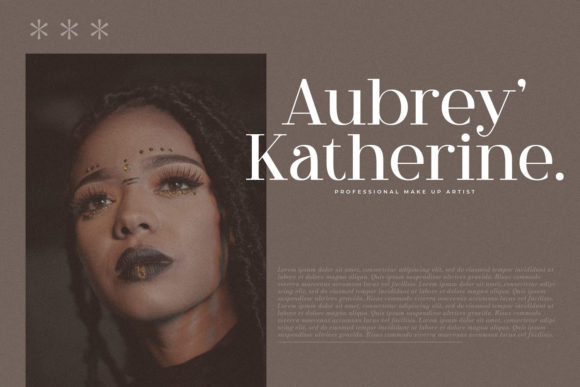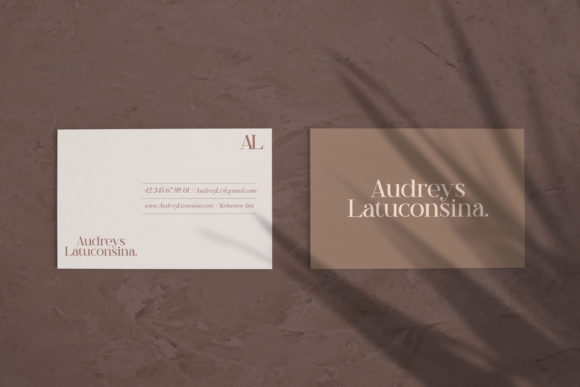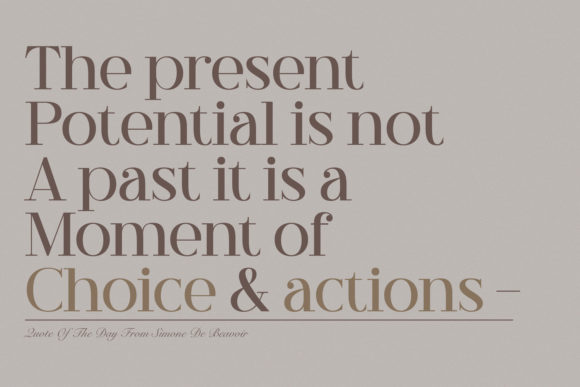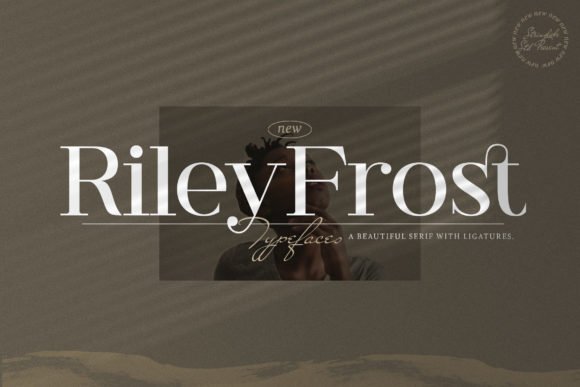
Introduction to Riley Frost Font
Riley Frost is an assertive yet distinct serif font.
Its elegance and simplicity make this font look absolutely fabulous on a variety of design ideas, both formal and informal .
Key Features of Riley Frost Font